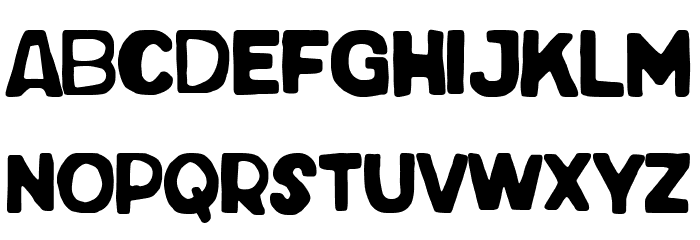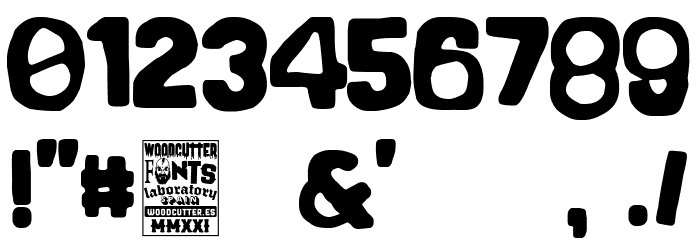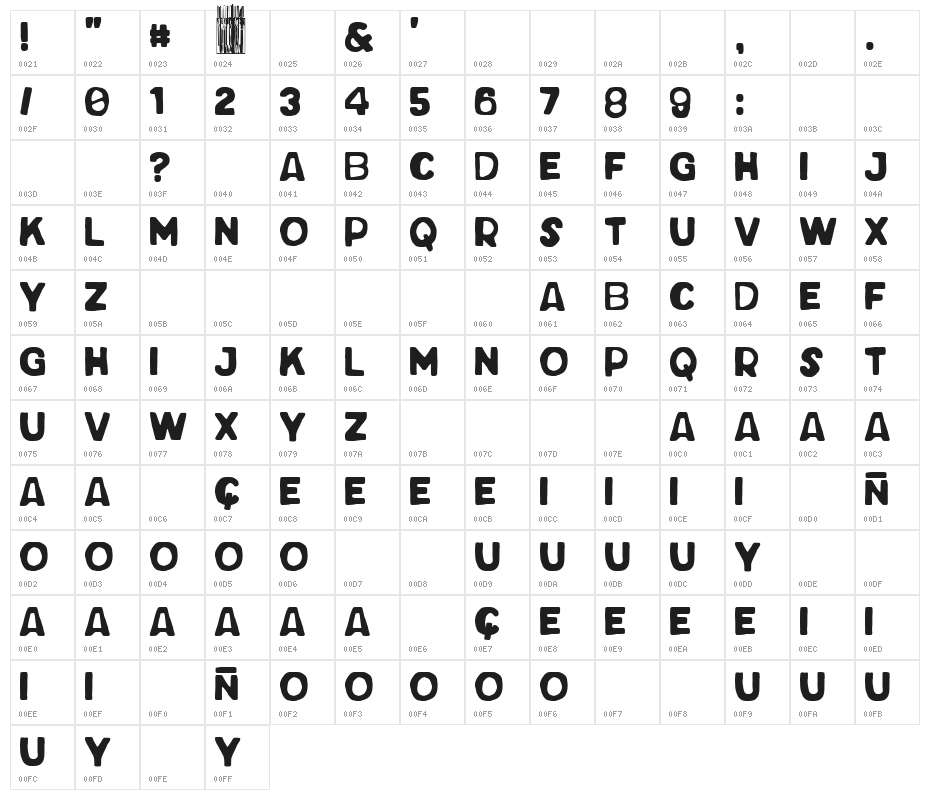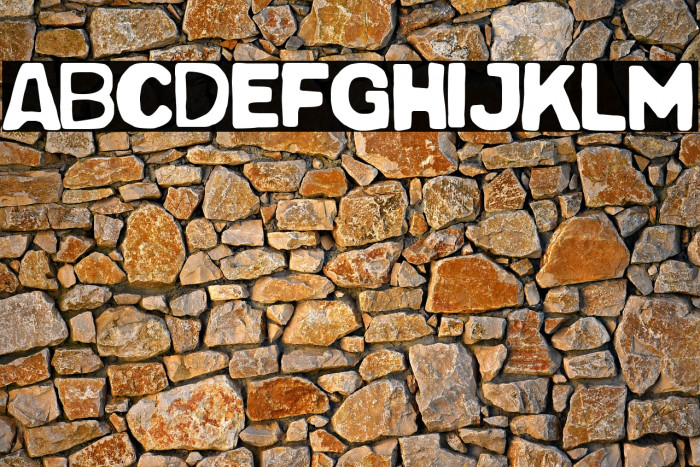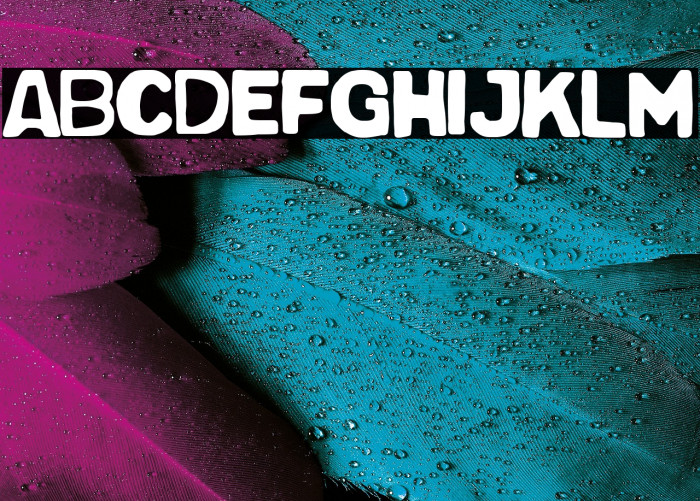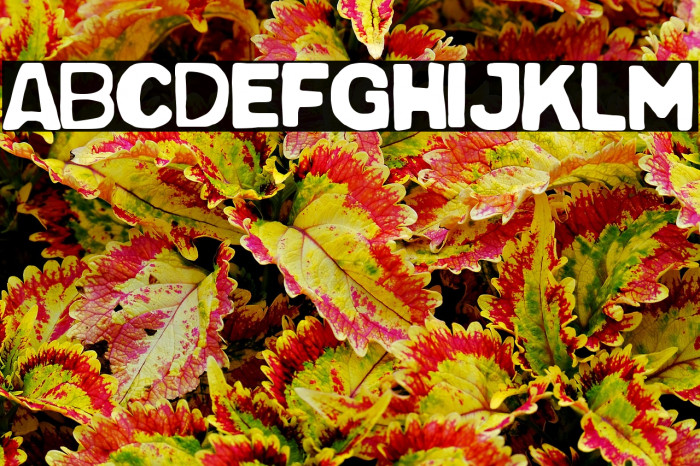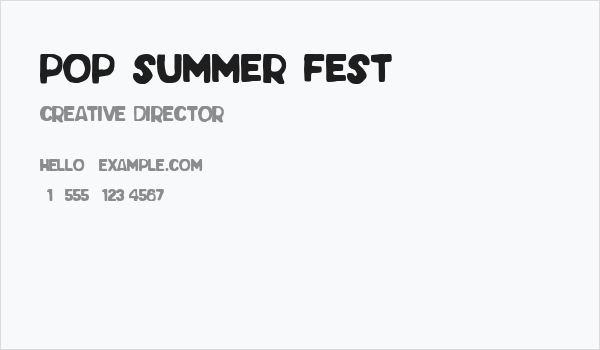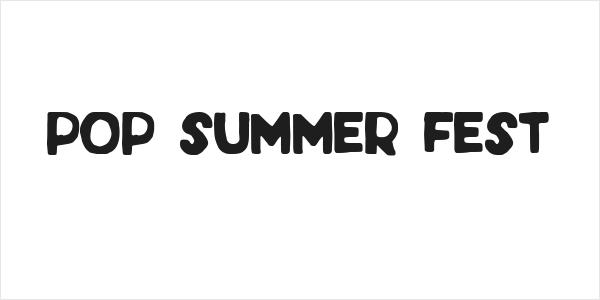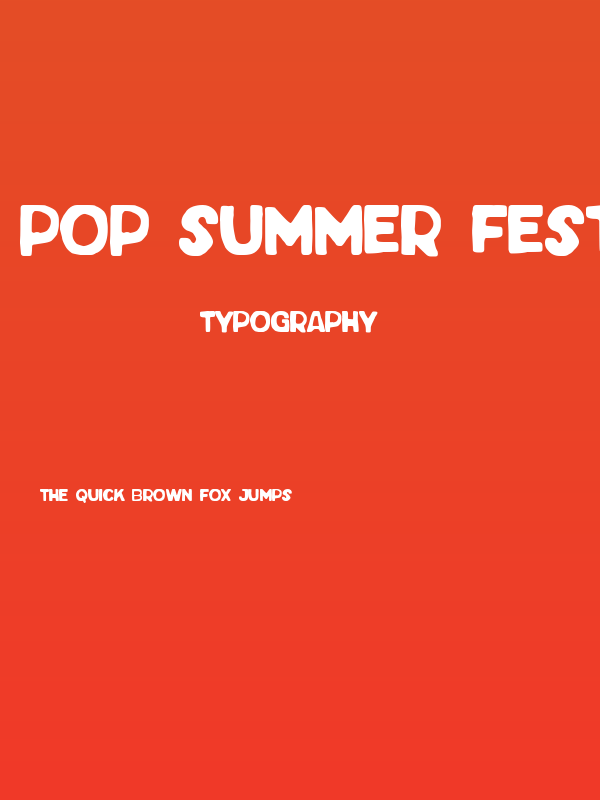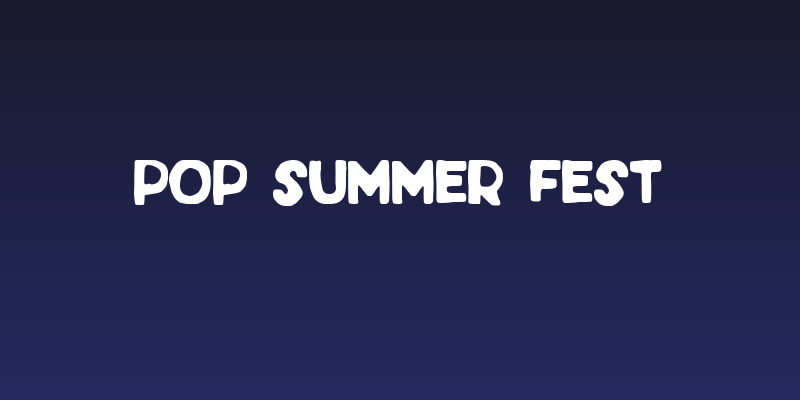
Pop Summer Fest Font
This font features a playful and bold design with rounded edges and a slightly irregular shape, giving it a hand-drawn appearance. The characters are thick and substantial, making them highly visible and impactful. The overall style is casual and fun, suitable for projects that require a lively and energetic feel. The uppercase and lowercase letters maintain a consistent style, while the numbers and special characters complement the alphabet with the same bold and rounded characteristics. This font is ideal for creative and informal designs, adding a touch of whimsy and personality.
A playful, bold font with rounded edges and a hand-drawn appearance.
- Font: Pop Summer Fest
- Proposed Projects: Ideal for posters, children's books, party invitations, and branding that requires a fun and lively touch.
- Overall Style: Playful, Casual, Fun